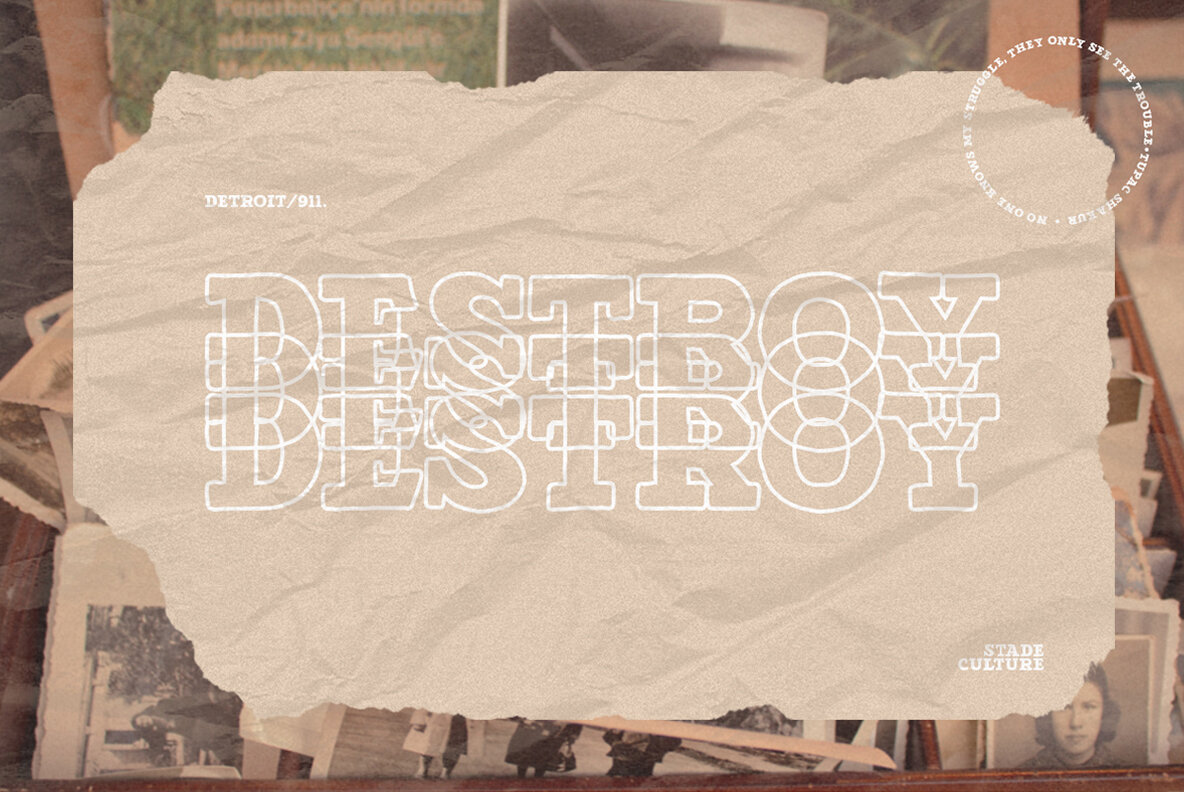
Detroit Font
Detroit
Detroit by Letterhend Studio offers a robust slab serif that stands out with its hand-lettered charm. The strong, bold lines lend themselves to a natural, engaging aesthetic. Ideal for vintage and rustic themes, this typeface brings a unique touch that complements a variety of formal and creative applications.Detroit: The Bold Slab Serif Typeface